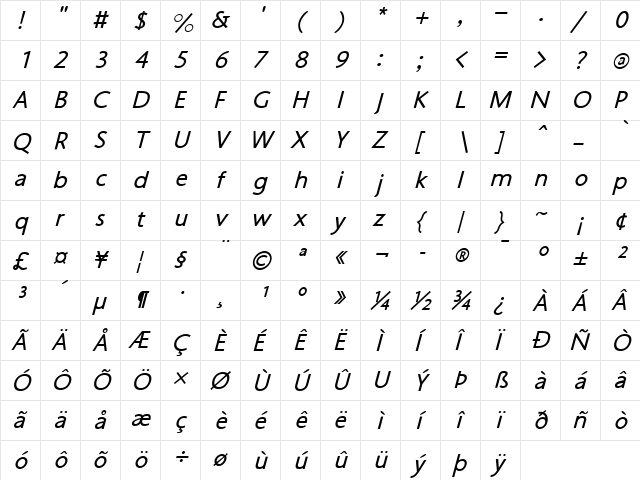
OskiDakelh Italic
Design Context for OskiDakelh Typeface
OskiDakelh takes a measured approach to typography — its balanced proportions and neutral character make it a reliable workhorse for both digital and print work. The slanted form adds forward momentum and visual energy.
Pro Tip: Try OskiDakelh for annotation and caption copy alongside an upright companion — the contrast in angle creates a dynamic but ordered typographic system.